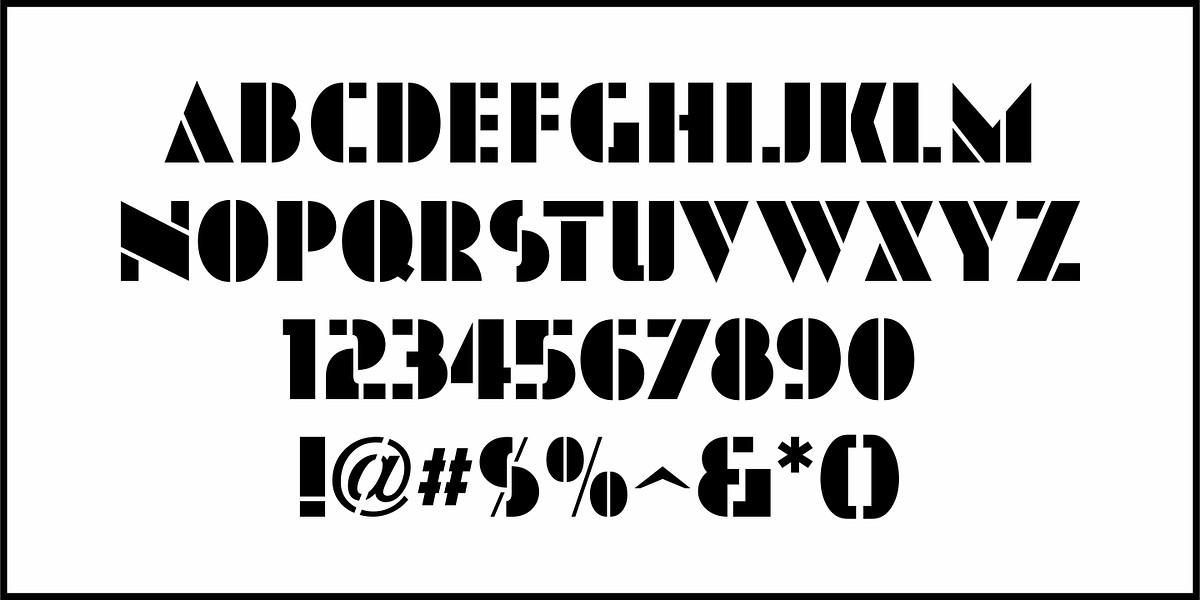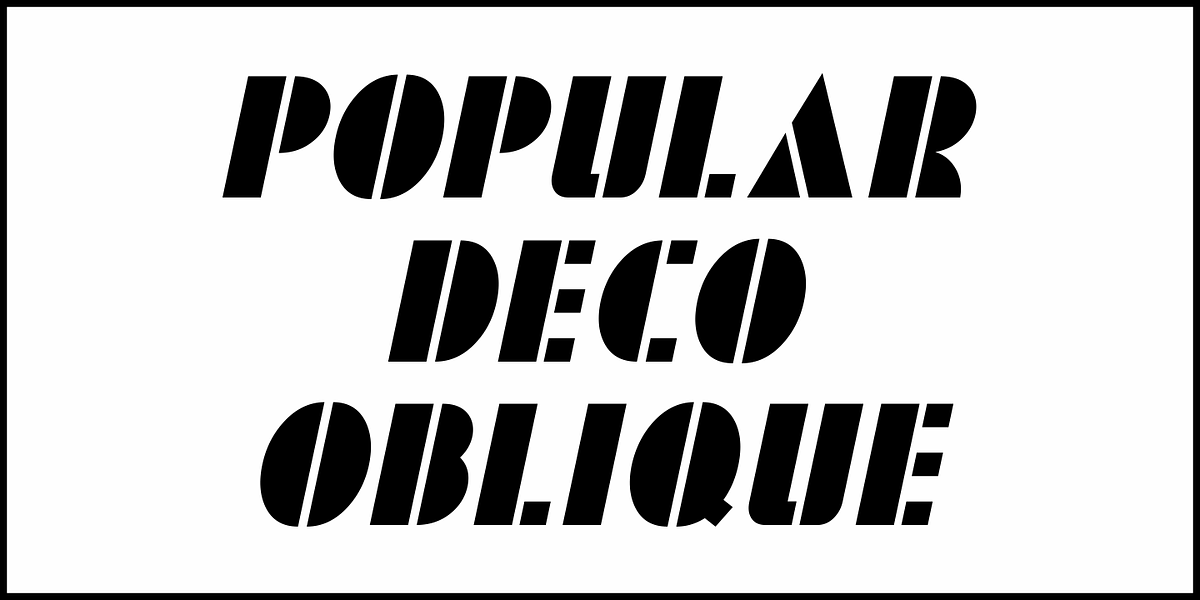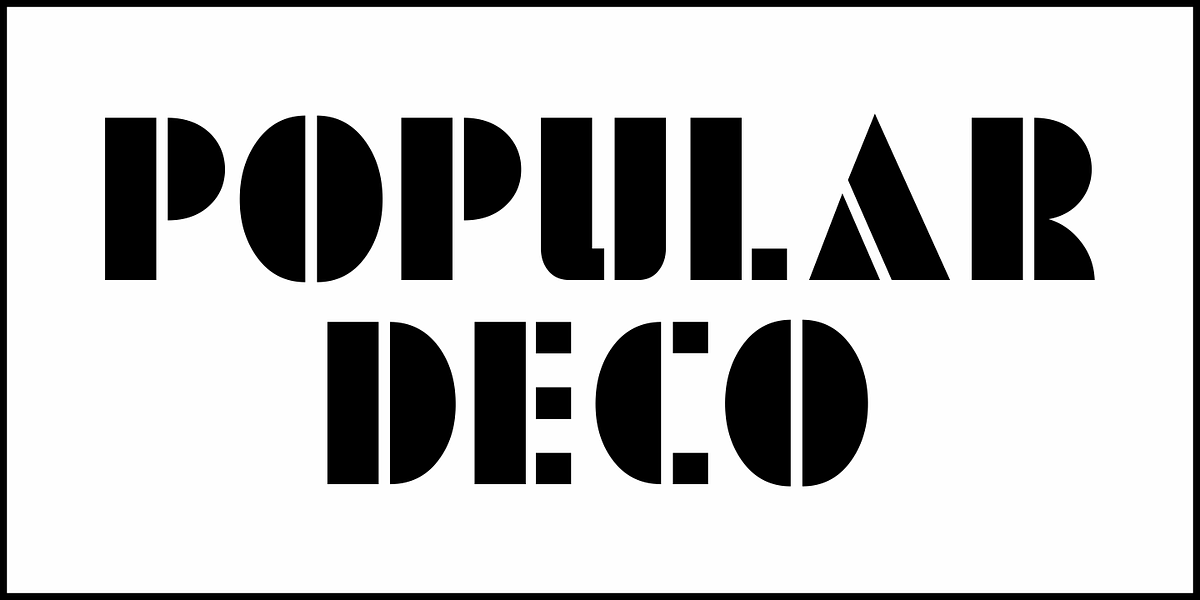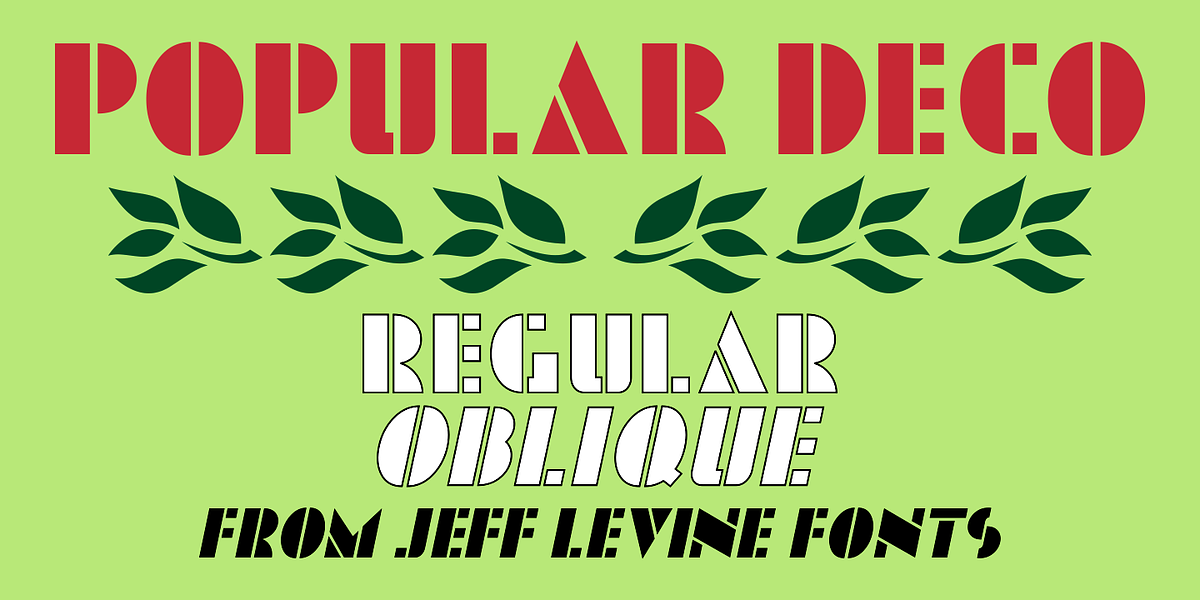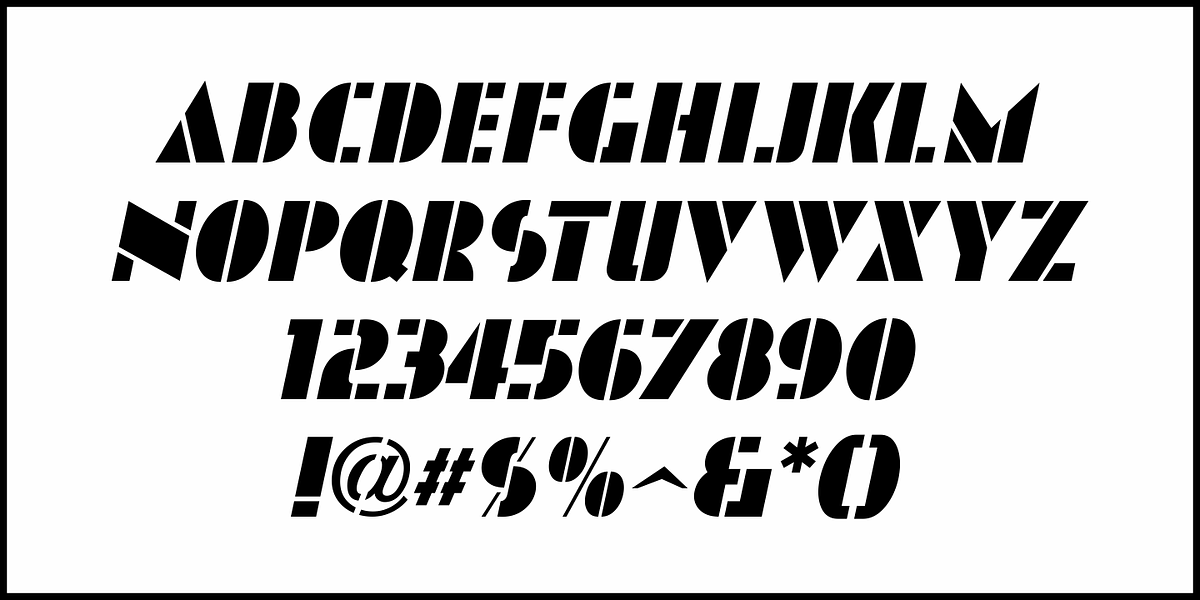
Popular Deco JNL
If imitation is the sincerest form of flattery, then Futura Black (with its bold stencil-like design) should be a proud typeface. There are many variations of this stalwart font from the Art Deco era - each with their own distinctive take on this classic.
Some hand lettering found within the April, 1938 issue of Picture Play Magazine for the title of the article "Streamlining the Stars" is one such example.
This is now available digitally as Popular Deco JNL in both regular and oblique versions.